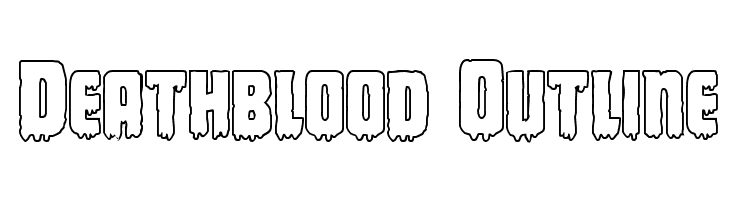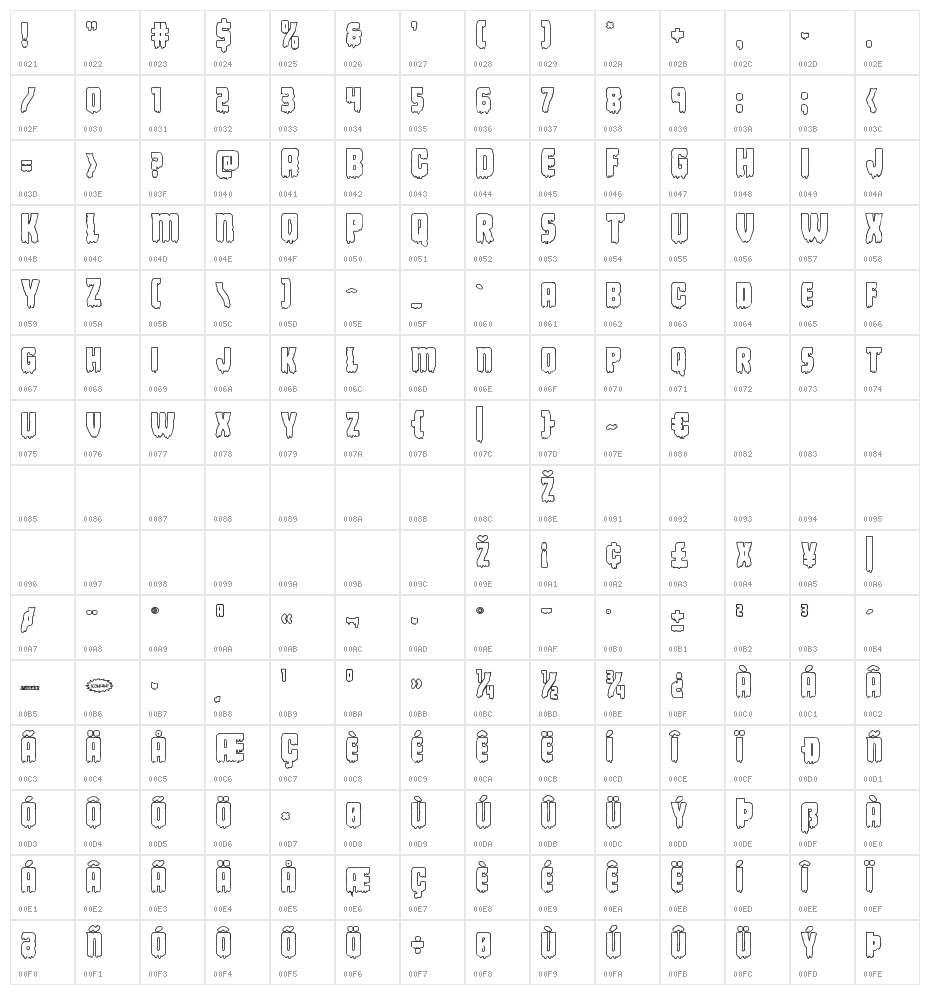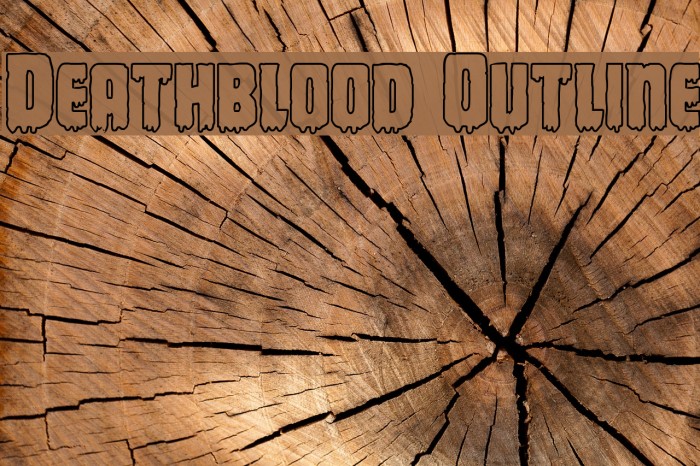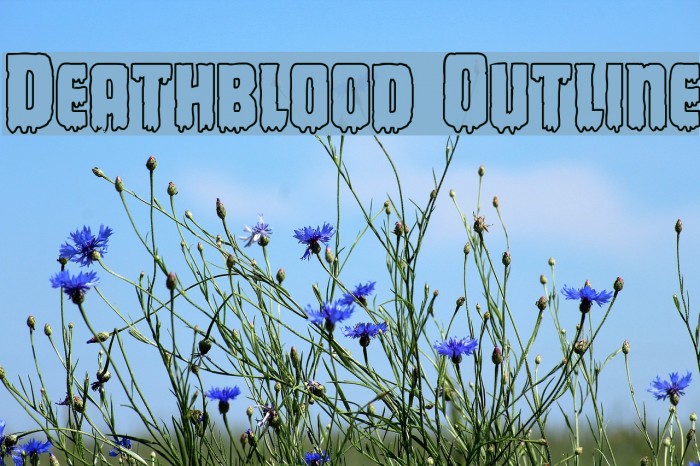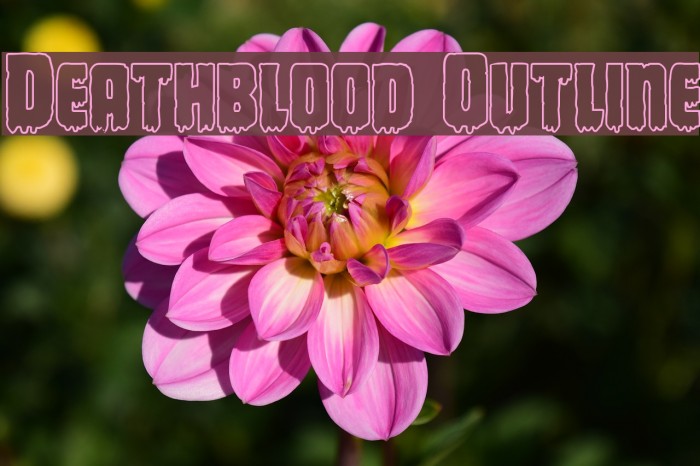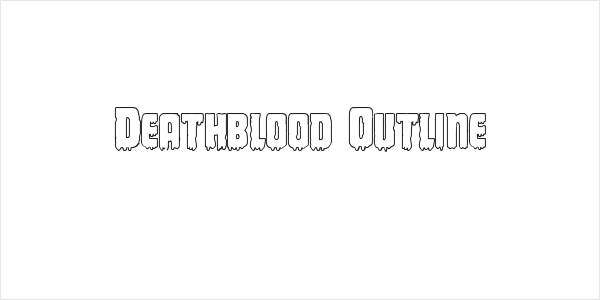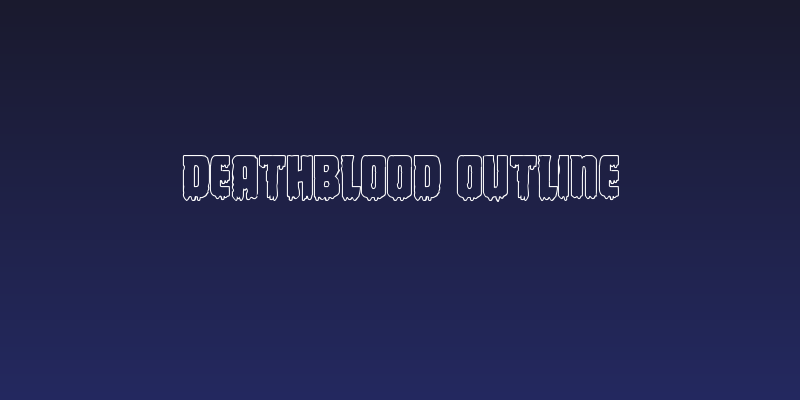
Deathblood Outline Font
Deathblood Outline Description
This font features a bold, dripping effect that gives it a spooky, horror-themed appearance. The characters are outlined, creating a striking visual impact that is both playful and eerie. Each letter and number appears as if it is melting or oozing, which adds to its unique and eye-catching style. The font maintains a consistent thickness throughout, with a medium contrast between the strokes and the outlines. The spacing between characters is normal, allowing for readability while still maintaining its decorative flair. This font is perfect for Halloween-themed projects, horror movie posters, or any design that requires a touch of the macabre.
| Proposed Projects | Ideal for Halloween posters, horror movie titles, themed party invitations, and spooky merchandise designs. |